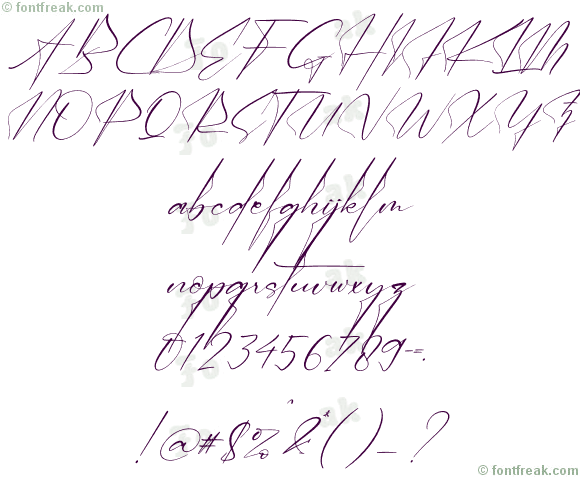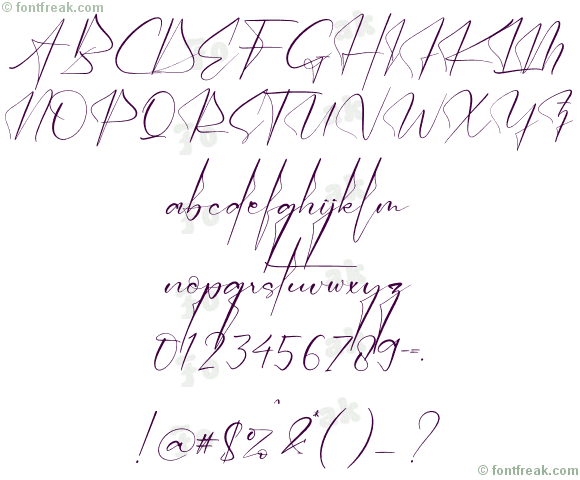
Victory Landera
About Victory Landera
Victory Landera, created by Perspectype Studio in 2021, is a striking script font that exudes elegance and sophistication. This font features a fluid, handwritten style characterized by its delicate strokes and graceful curves. The contrasting weight of the strokes adds a dynamic quality, making the letters dance across the page. The ample spacing between characters enhances readability while maintaining an artistic flair, making it a perfect choice for a variety of design projects.
The Victory Landera font is versatile and can be used effectively in numerous scenarios. It is particularly well-suited for wedding invitations, where its romantic aesthetics can convey affection and elegance. Additionally, this font shines in branding materials, such as logos for boutique shops or artisanal products, where a personal touch is essential. Movie posters can also benefit from its dramatic flair, as it can attract attention and set the tone for the film. Restaurant menus featuring this font can create an inviting atmosphere, making the dining experience feel more special. Finally, content creators seeking to add a unique touch to their social media graphics will find Victory Landera to be a fantastic option.
Targeting graphic designers, small business owners, and content creators, Victory Landera is a wonderful addition to any creative toolkit. Its charming aesthetic is bound to resonate with those looking for a font that combines style with functionality. The Victory Landera font free download offers an opportunity for anyone to elevate their design projects without cost. This font stands out due to its unique blend of elegance and versatility, making it an essential choice for those who appreciate artistry in typography.